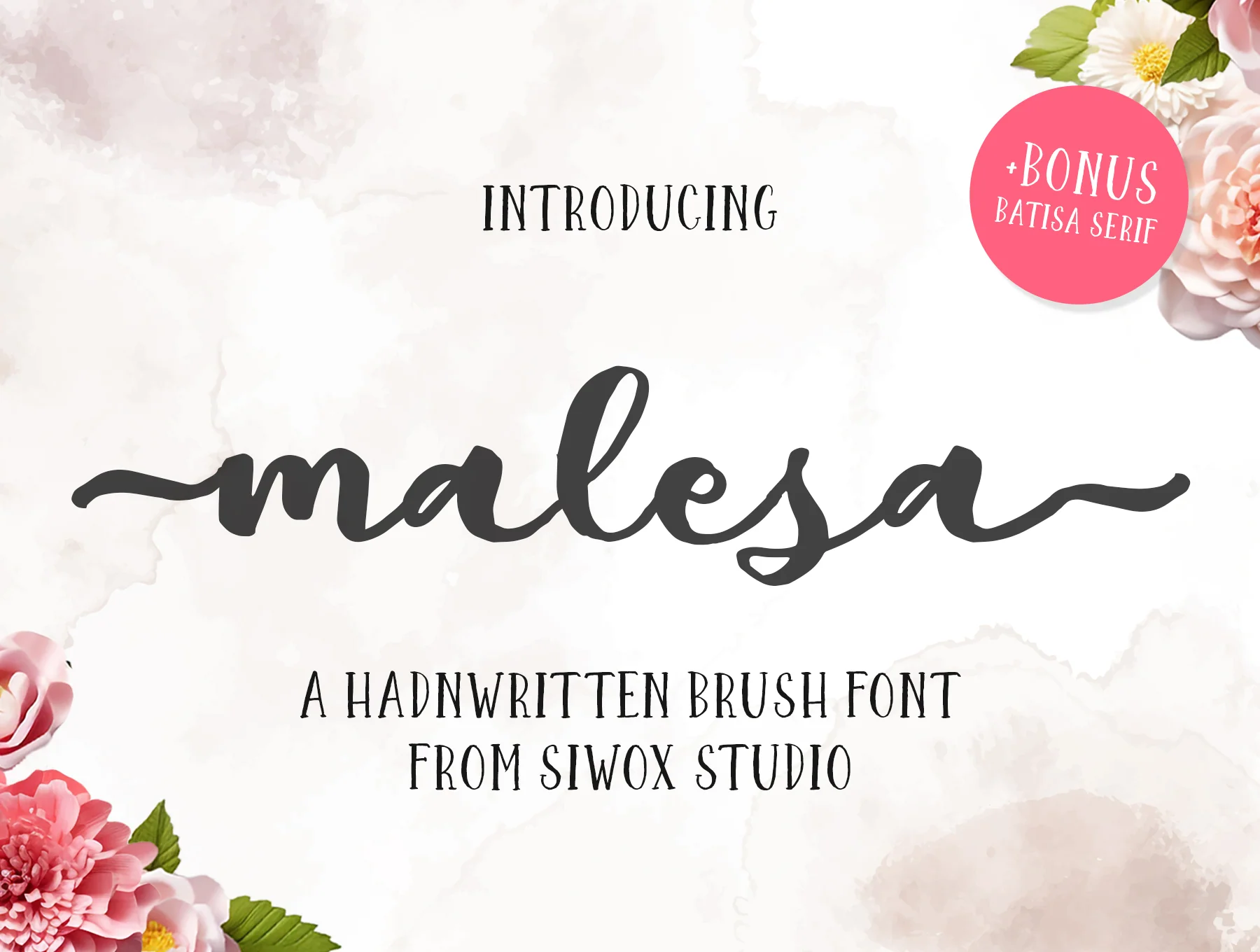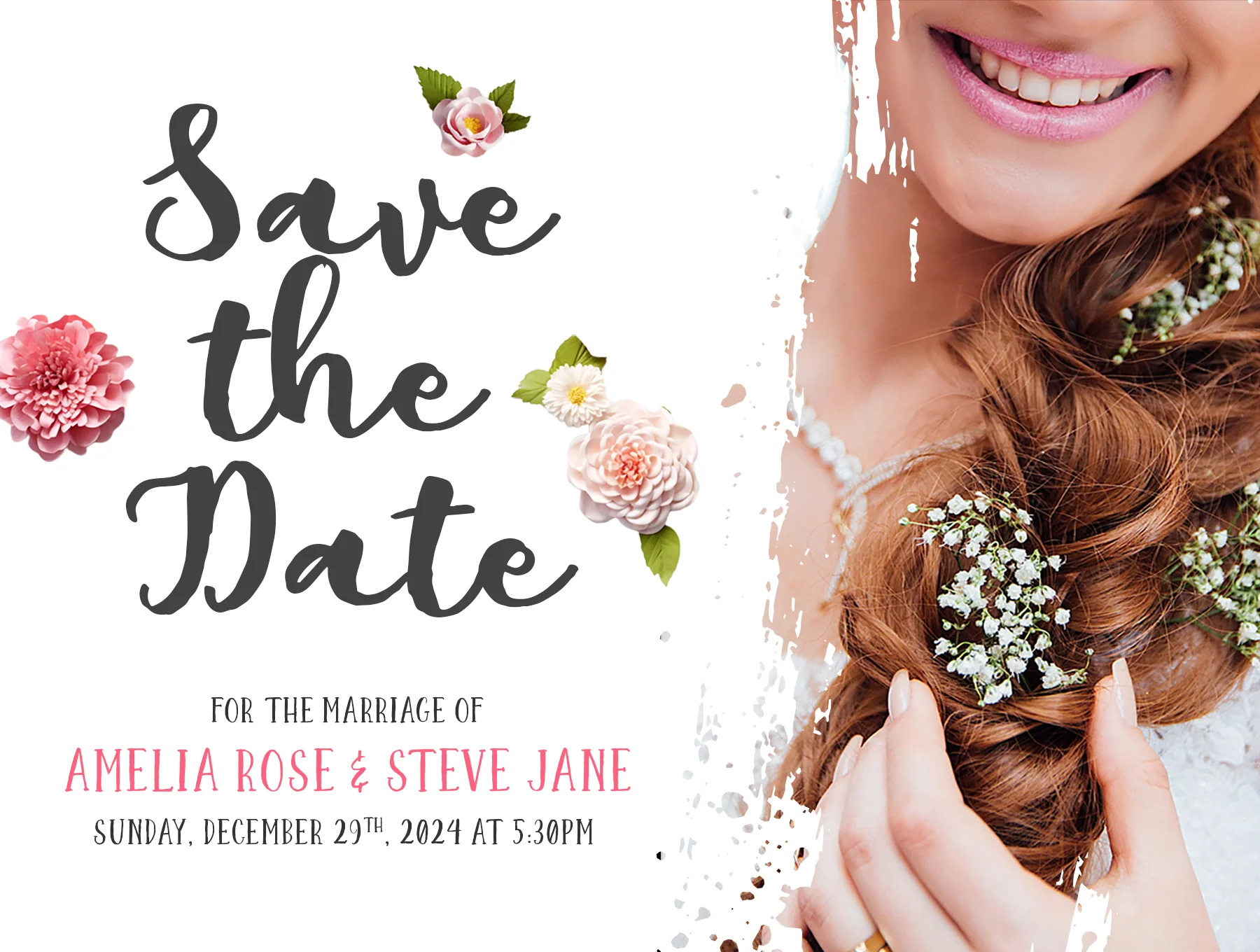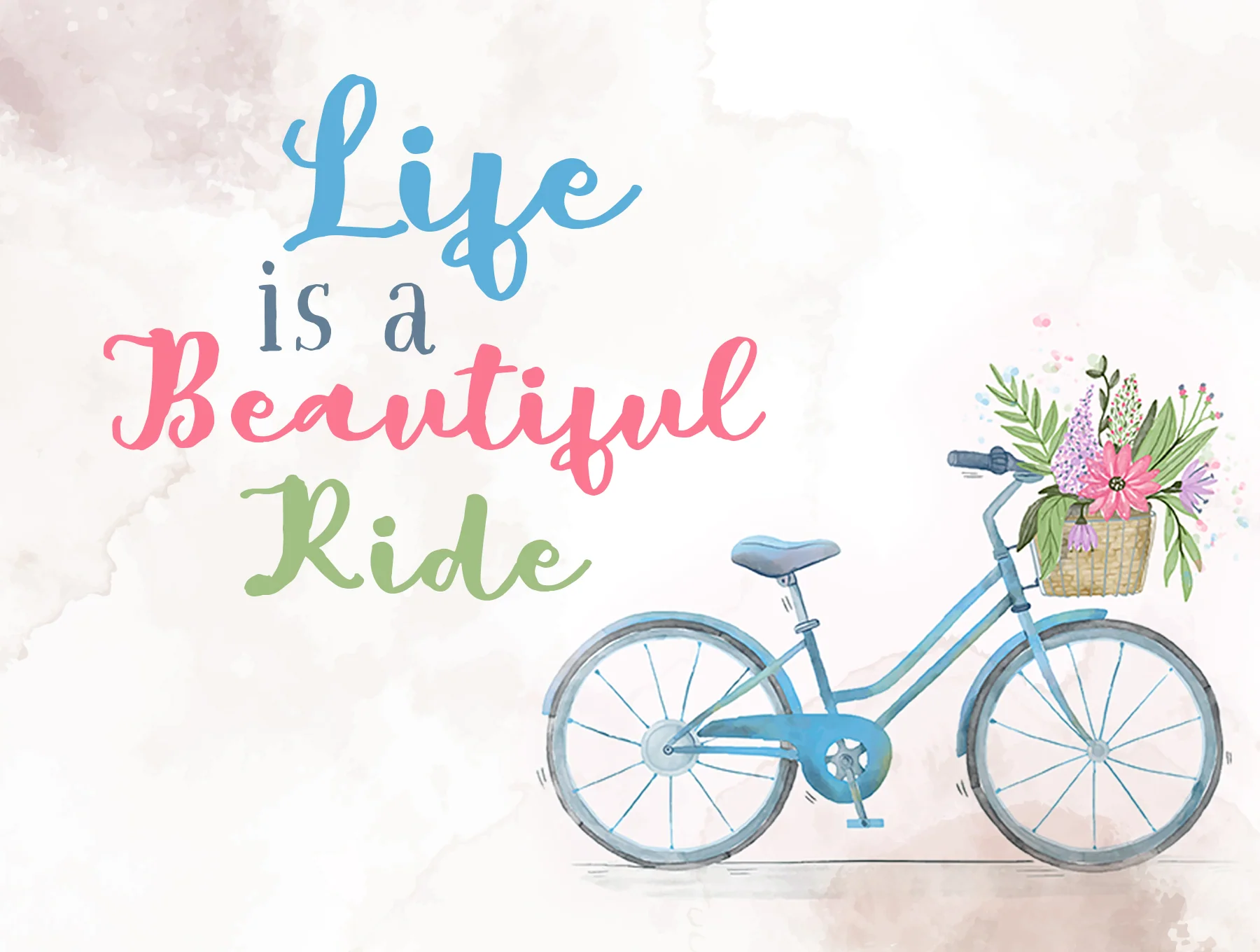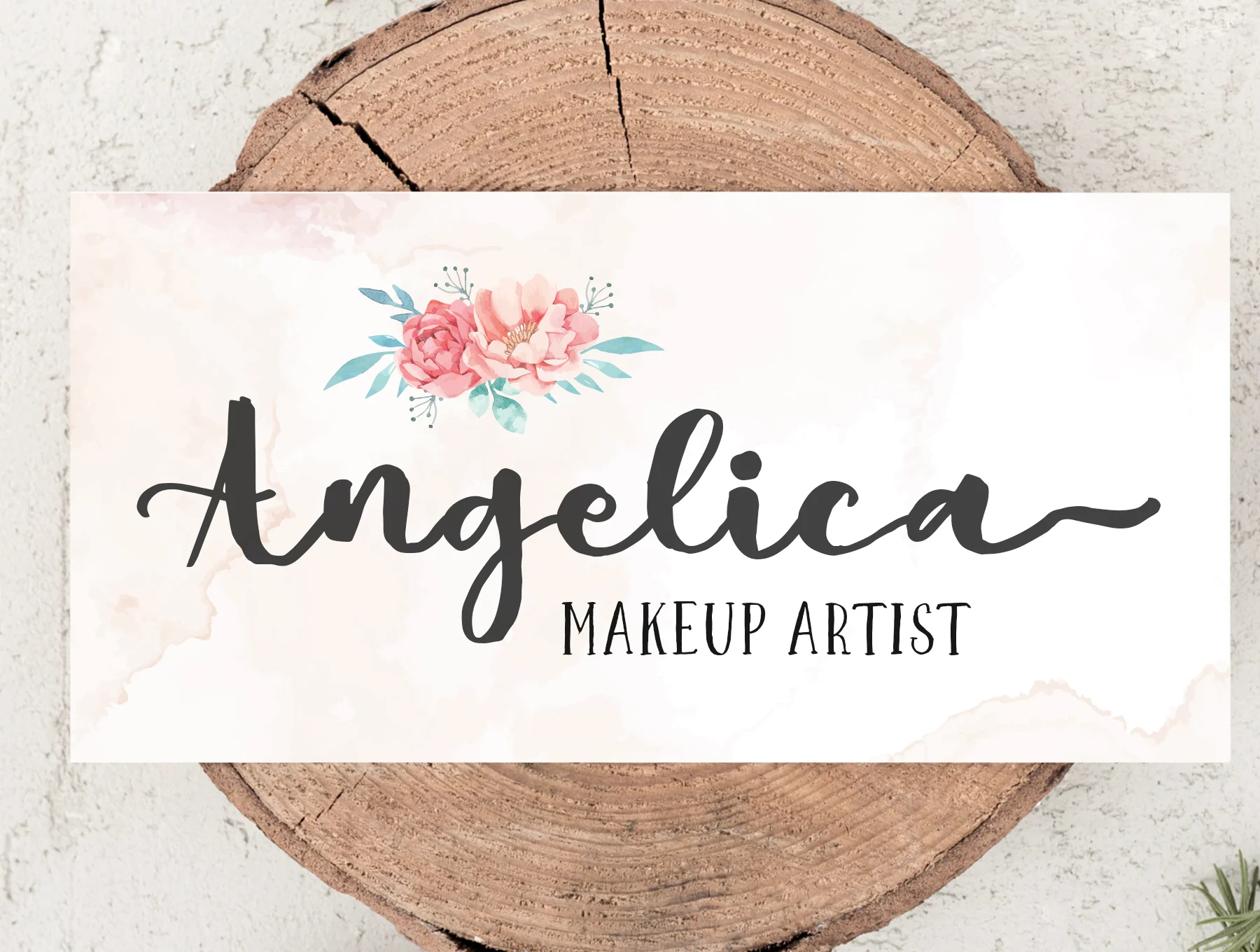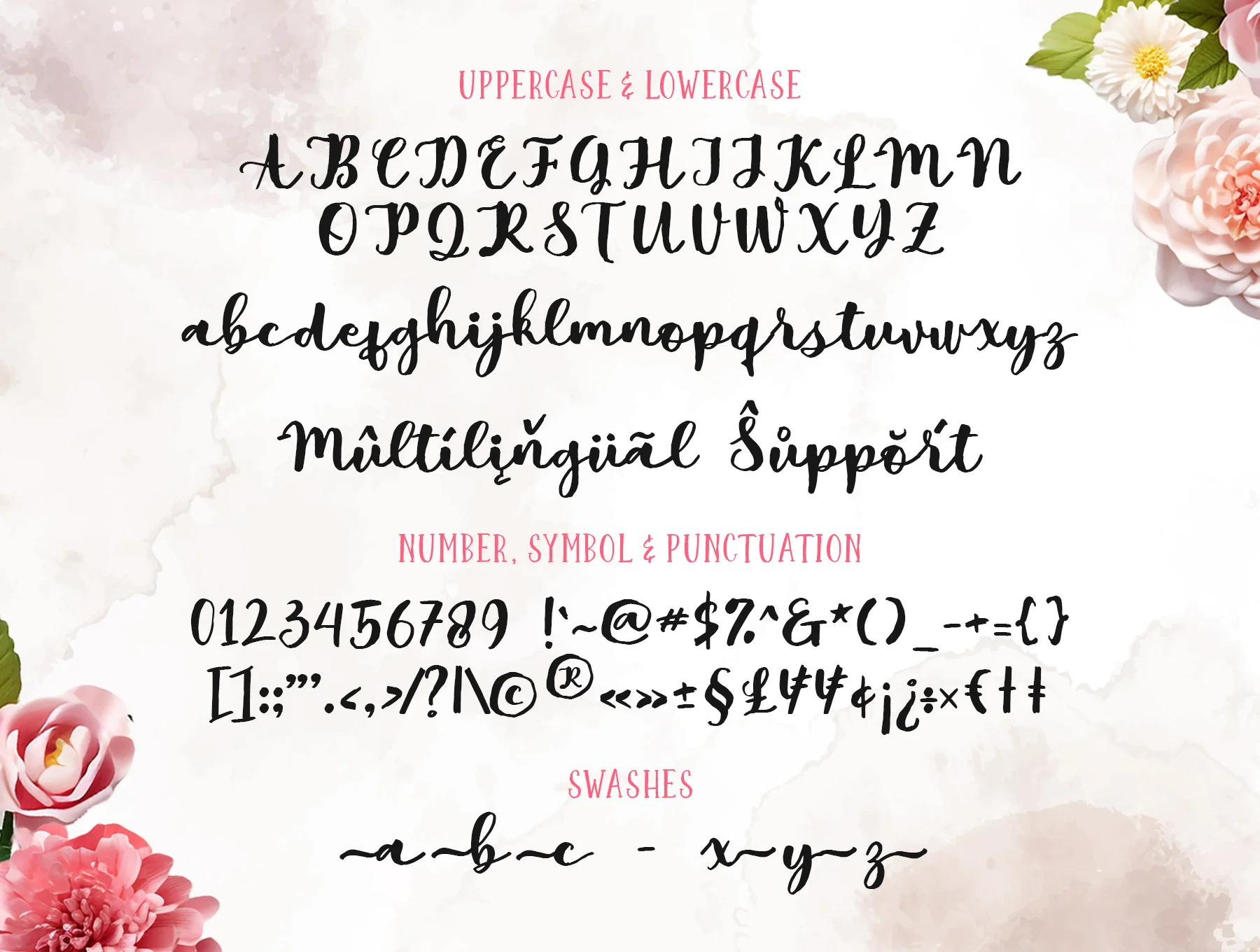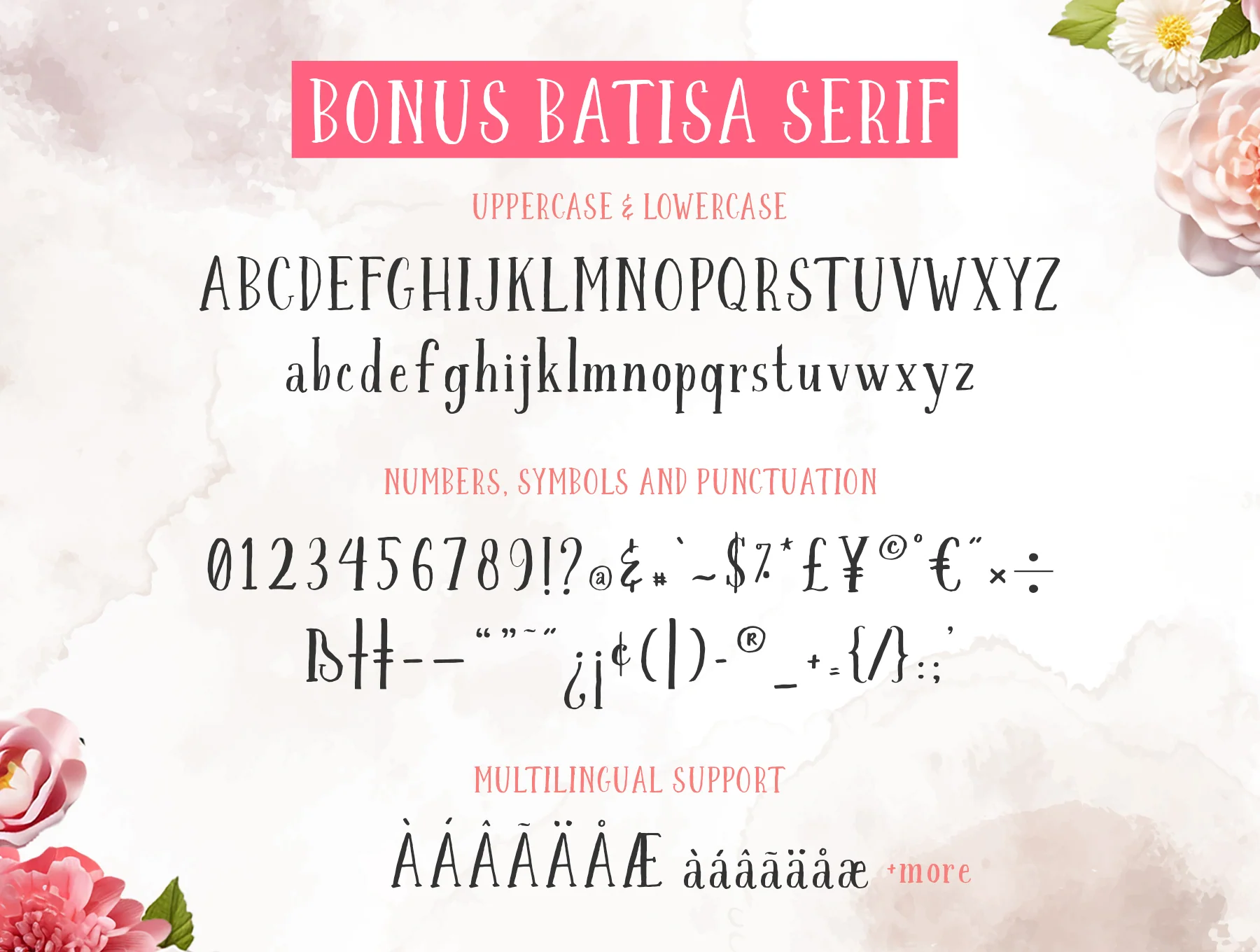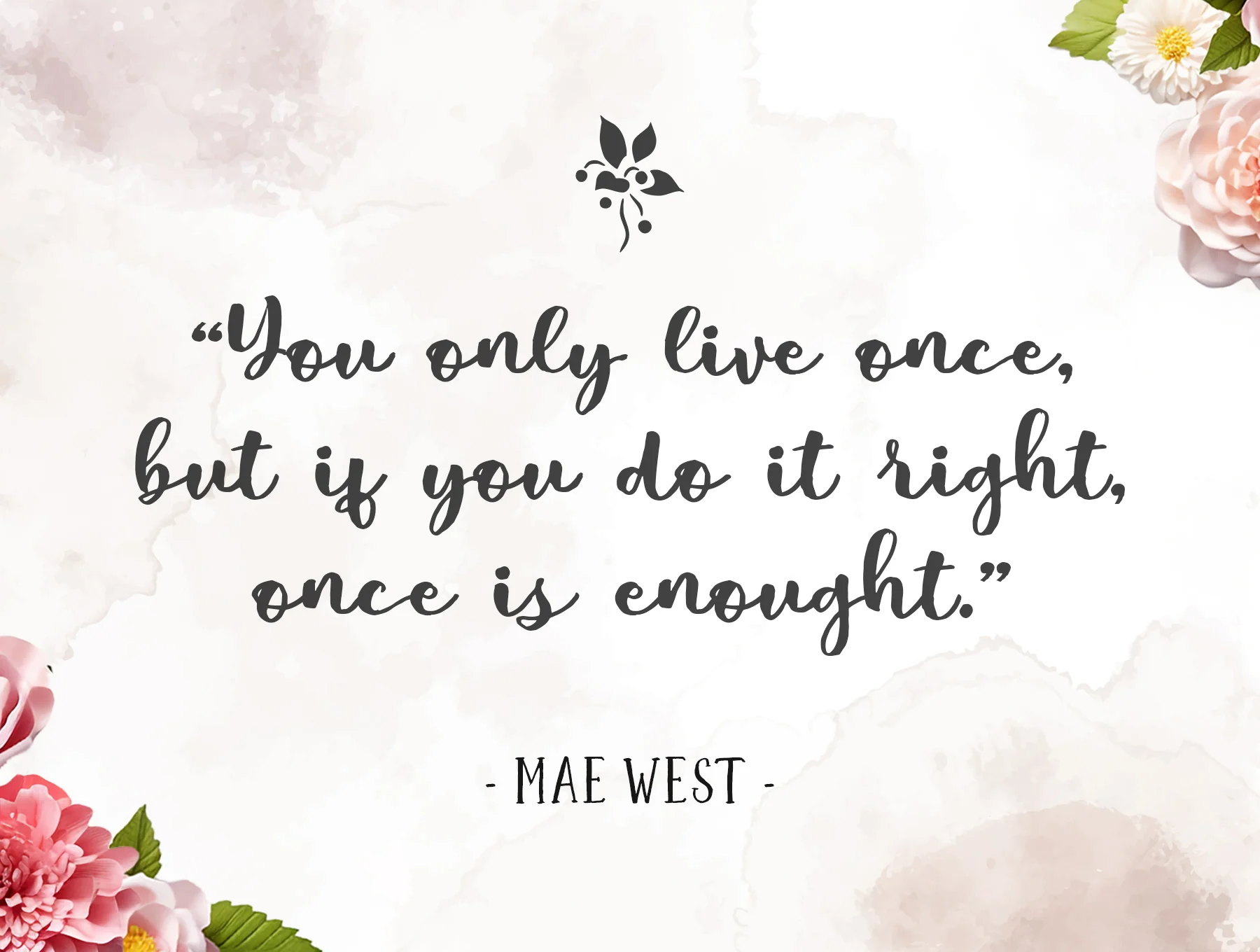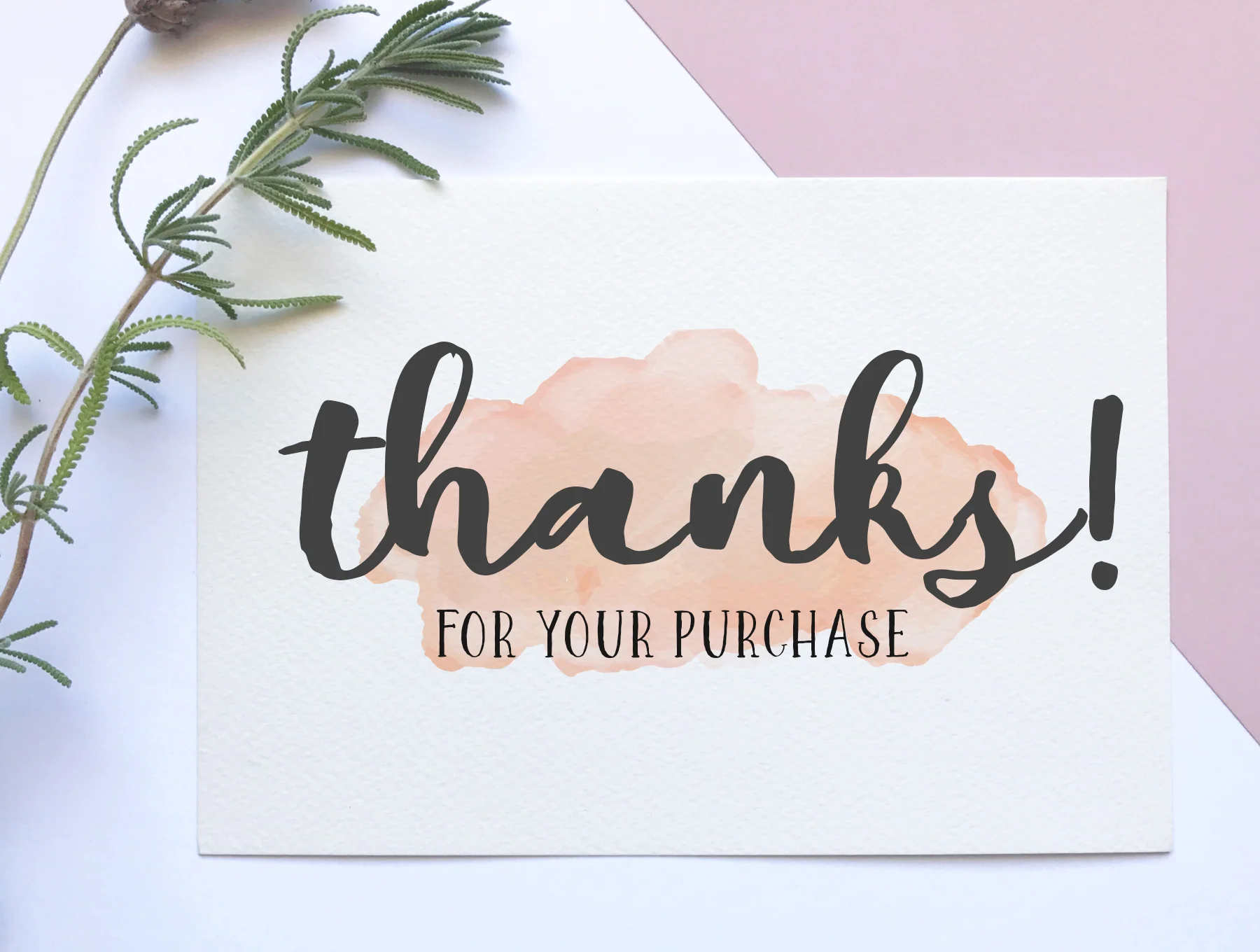
Malesa Brush font
Handwritten brush typeface plus bonus Batisa Serif
Extra Batisa Serif Font
Multilingual glyphs, numbers & punctuation marks
Alternate characters & ligatures
Malesa Brush is a refined handwritten typeface with balanced, distinctive characters, ideal for cards, quotes, social posts, branding, weddings, invitations, stationery, and ads. PUA encoding lets you easily use every glyph and swash. Includes Malesa Brush and bonus Batisa Serif in TTF, OTF, WOFF, and WOFF2, perfect for striking font pairings. Support is available for any questions.